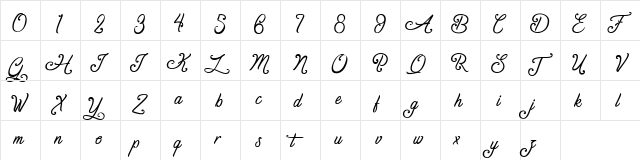
Gentleman in the Shadow Regular
Design Context for Gentleman in the Shadow Typeface
Gentleman in the Shadow is built around its visual character rather than neutral utility — its distinctive forms are designed to make an impression at display sizes.
Font Pairing: Pair with a clean neutral sans-serif for body copy to let Gentleman in the Shadow's character lead without overwhelming the composition.
Pro Tip: Use Gentleman in the Shadow exclusively at display sizes — it was designed to be seen, not read at length. Let a neutral companion handle body copy.